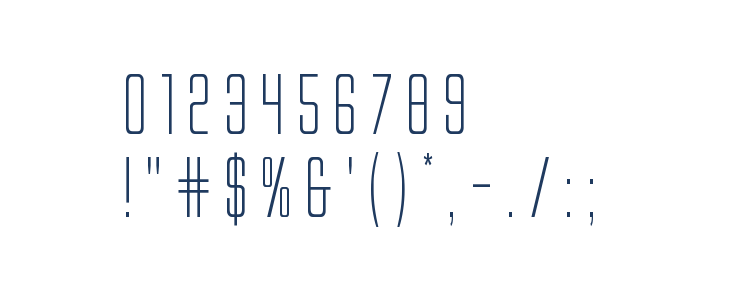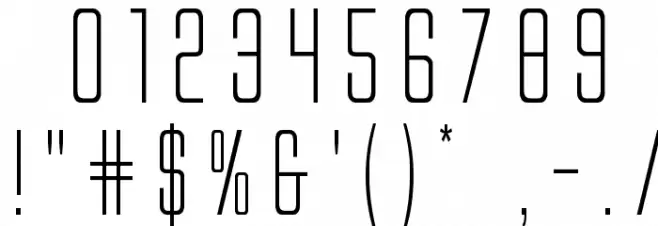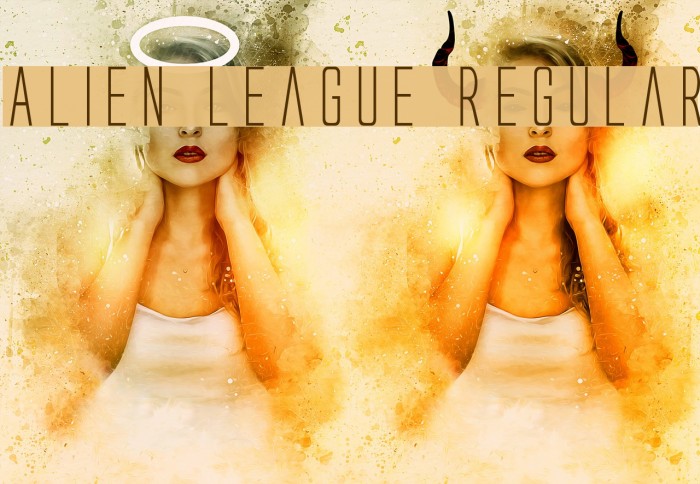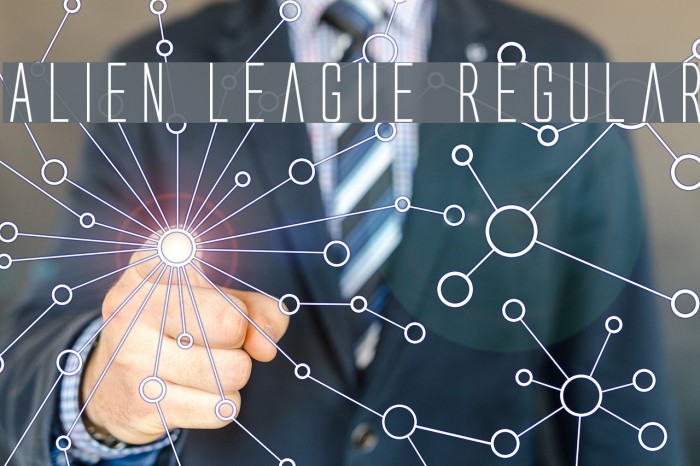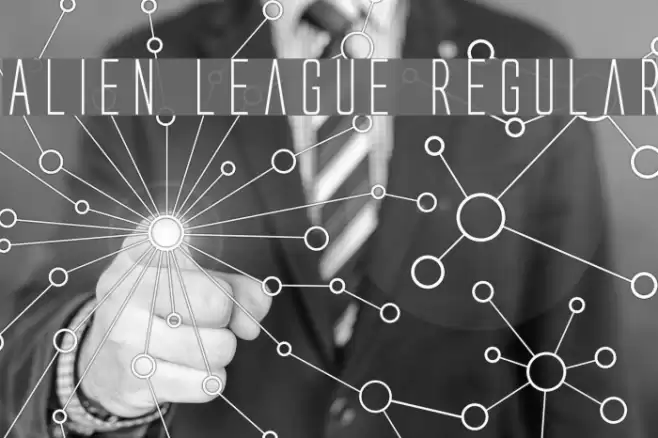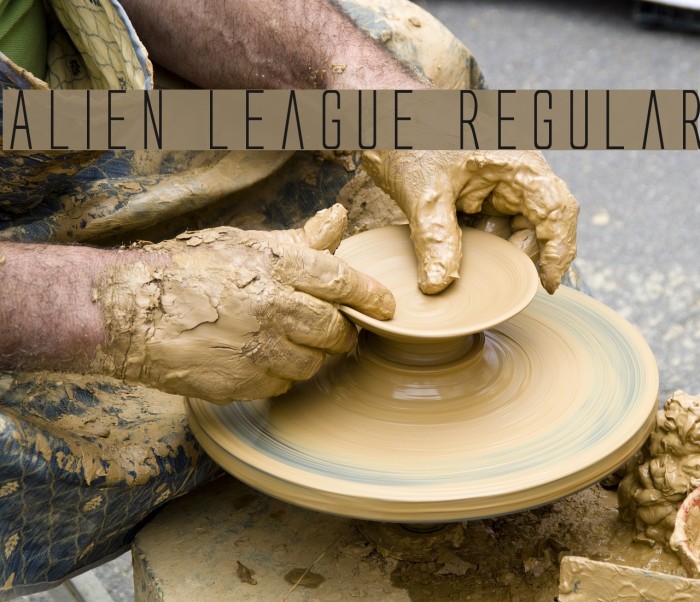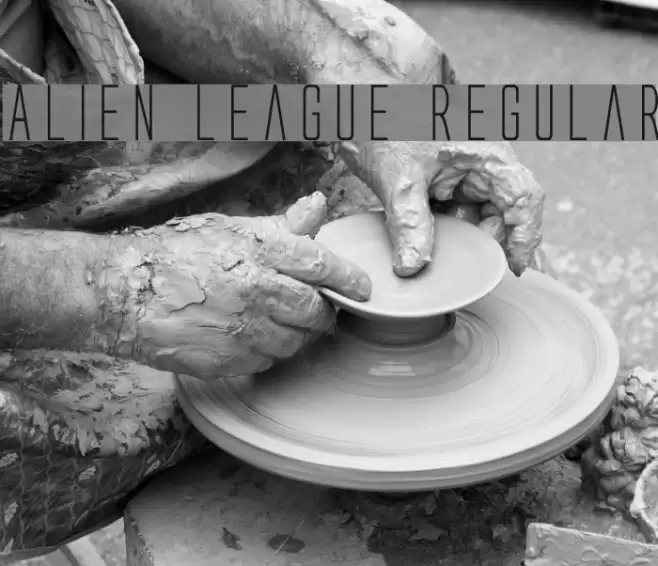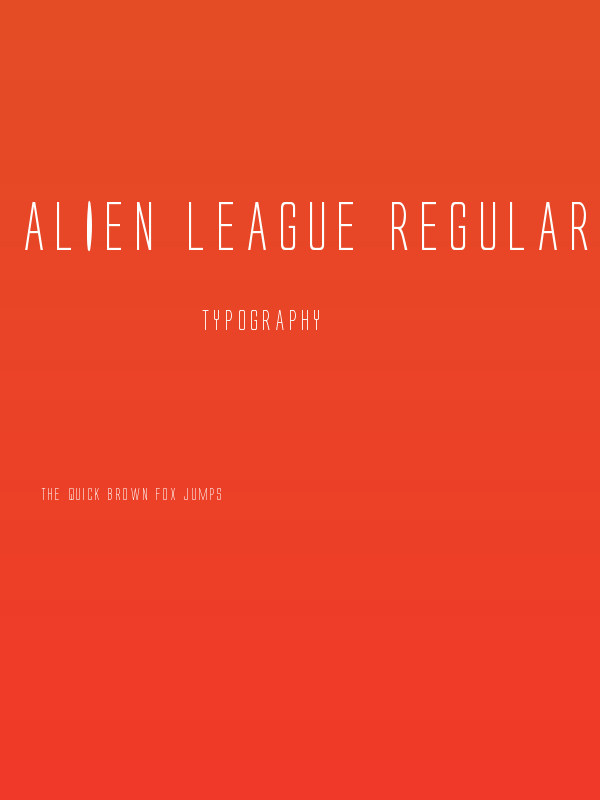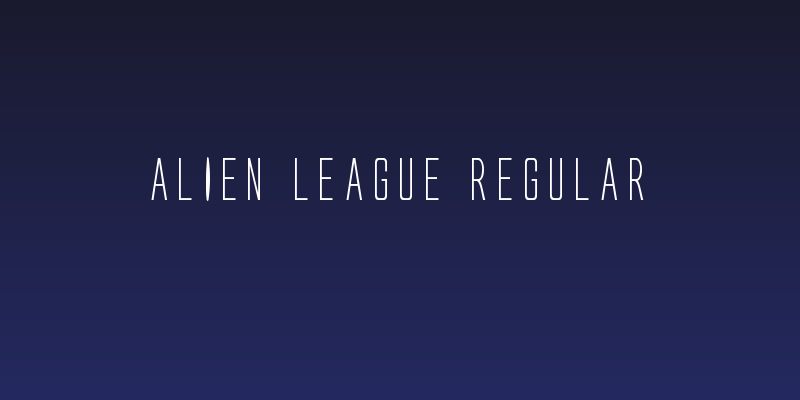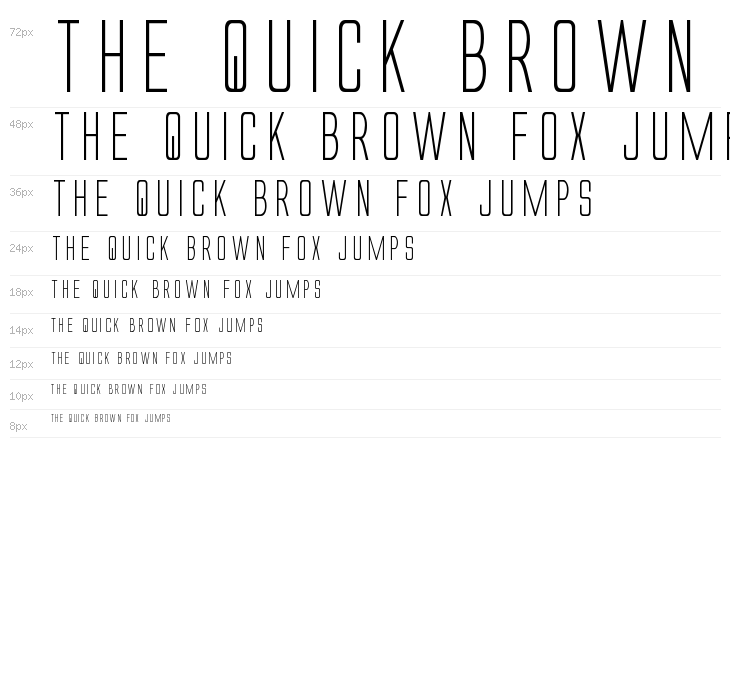
Alien League Regular Font
Alien League Regular Description
This font exhibits a futuristic and sleek design, characterized by its tall, narrow letterforms and minimalistic style. The uppercase and lowercase letters share a consistent geometric structure, creating a uniform appearance. The font's clean lines and sharp angles give it a modern and sophisticated look, suitable for projects that require a contemporary aesthetic. The numerals and special characters maintain the same design principles, ensuring a cohesive visual identity across all text elements. Its unique style makes it stand out, particularly in digital and sci-fi themed applications.
| Use Case | Headlines, Logos, Digital Interfaces |
| Proposed Projects | Ideal for sci-fi themed designs, digital interfaces, technology branding, and modern advertising. |